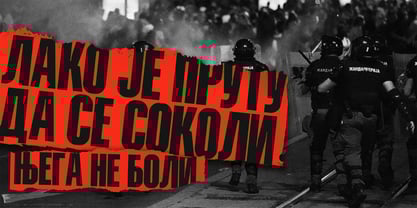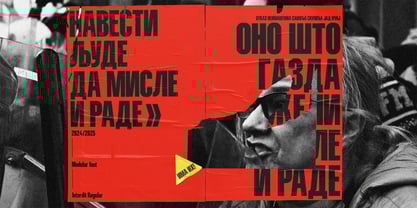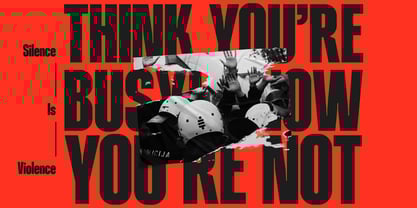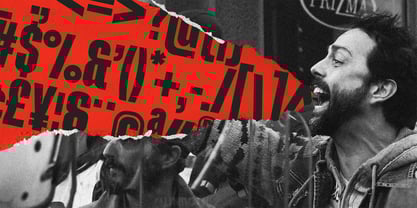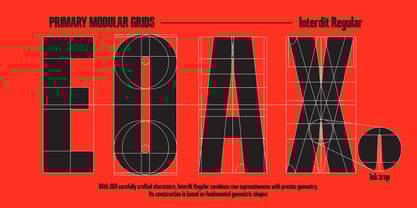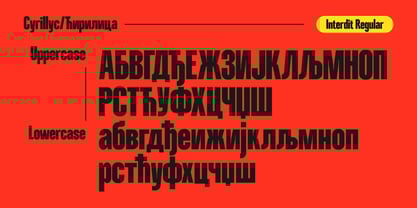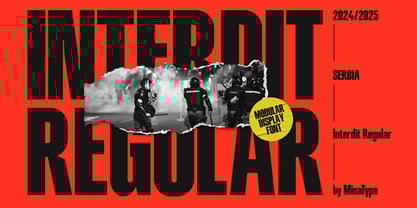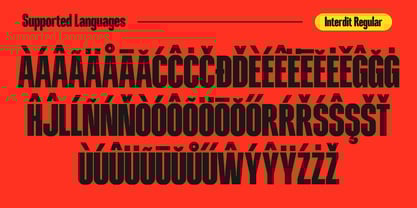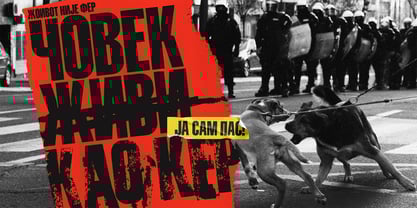
Interdit Regular
by MinaType
The Interdit Regular Font Family was designed by Mina Radovic and published by MinaType. Interdit Regular contains 1 styles. More about this family
Interdit Regular is a modular display typeface that embodies protest and resistance. Its name, Interdit (French for "forbidden"), signifies the restrictions on movement during student protests, where streets and universities were blockaded. Drawing inspiration from the bold, raw forms of banners used in these demonstrations, this font infuses the energy of street messages into modern design. With 369 meticulously crafted characters, Interdit Regular merges raw expressiveness with precise geometry. Its design is rooted in fundamental geometric shapes, providing rhythm and stability, while subtle imperfections reflect the essence of hand-painted slogans and the remnants of banners and walls. The result is a typeface that balances systematic structure with unrestrained creativity. Interdit's atmosphere is characterized as brutalist and contemporary—direct, rough, and unapologetic, yet firmly anchored in modern design principles. This unique duality makes it a striking choice for various visual contexts. Ideal applications include posters for film, theater, music, or commercial use, labels, covers, album artwork, branding, visual identities, as well as editorial projects, fanzines, and digital graphics. Wherever a strong visual identity and a clear typographic voice are essential, Interdit stands out as the leading choice.
Designers: Mina Radovic
Foundry: MinaType
MinaType, based in Kragujevac, Serbia, was founded by Mina Radovic, who embarked on her type design journey in 2023, releasing her first font in 2024. As a graphic design student specializing in visual communications. Her designs are deeply rooted in a profound understanding of letter morphology, honed through her extensive experience in calligraphy and the creation of posters, labels, packaging, and various visual communication forms. MinaType' s fonts are developed in response to the need for high-quality display fonts in modern design, offering a distinctive raw aesthetic that enhances contemporary visual projects.